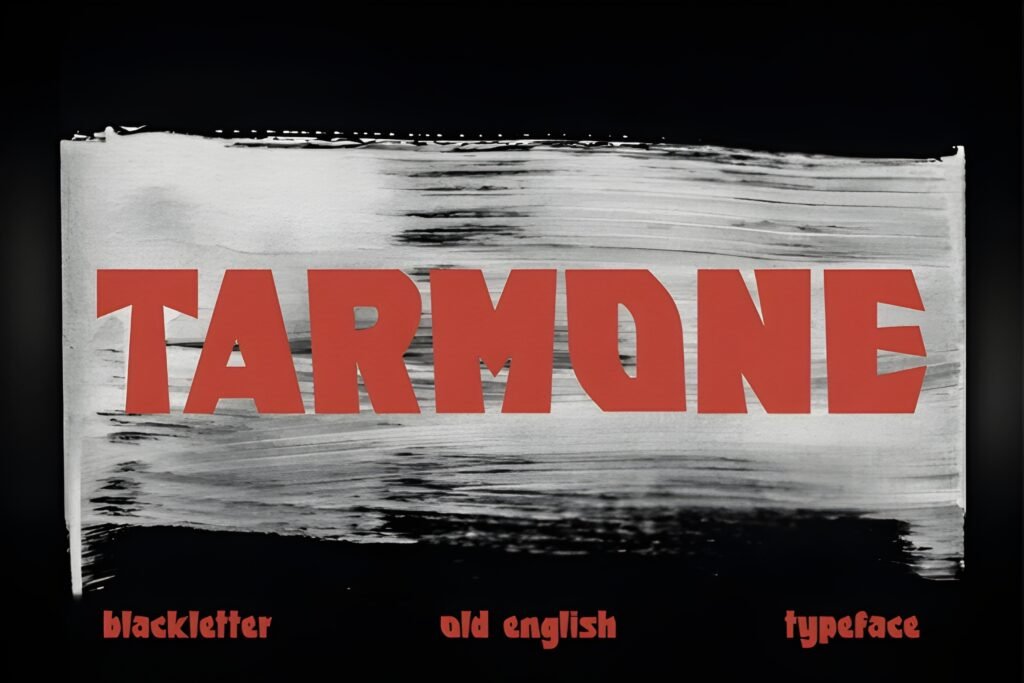
Tarmone Font
✒️ Tarmone — Sharp Old English Blackletter Font
Step into the elegance of the 1800s with Tarmone, a sharp blackletter typeface that fuses historic Old English tradition with modern design flair. Its bold lines, refined serifs, and striking Gothic character make it a versatile choice for projects that demand both authenticity and contemporary impact.
Perfect for posters, branding, headlines, social media graphics, album covers, web design, badges, certificates, and apparel prints, Tarmone adds depth and sophistication to any layout. Its timeless aesthetic evokes the grandeur of vintage calligraphy while remaining adaptable for today’s creative needs.
With its dramatic presence and stylish versatility, Tarmone transforms ordinary text into unforgettable visual art — bold, elegant, and full of character. Enrich your designs with Tarmone and let your words speak with historic power and modern charm.